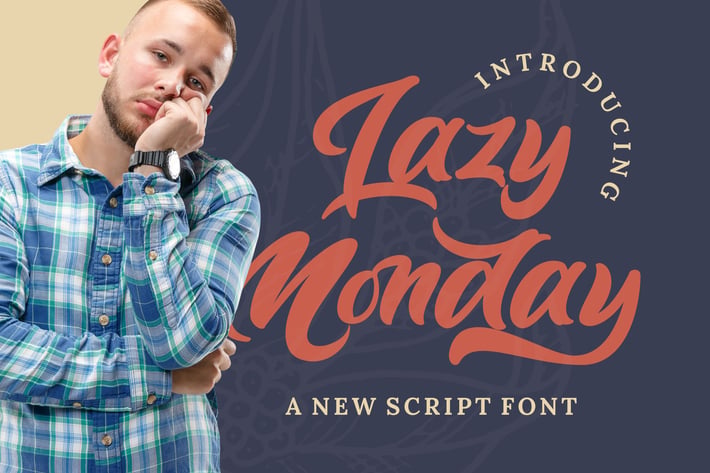
Lazy Monday - Bold Script Font
Introducing Lazy Monday - Bold Script Font
Lazy Monday is an exquisite handwritten font with bold script retro style, masterfully designed to become a true favorite. It maintains its classy calligraphic influences while feeling contemporary and fresh. Fall in love with it and bring your projects to the highest levels!
- Stylistic Alternates
Lazy Monday is an exquisite handwritten font with bold script retro style, masterfully designed to become a true favorite. It maintains its classy calligraphic influences while feeling contemporary and fresh. Fall in love with it and bring your projects to the highest levels!
- Stylistic Alternates